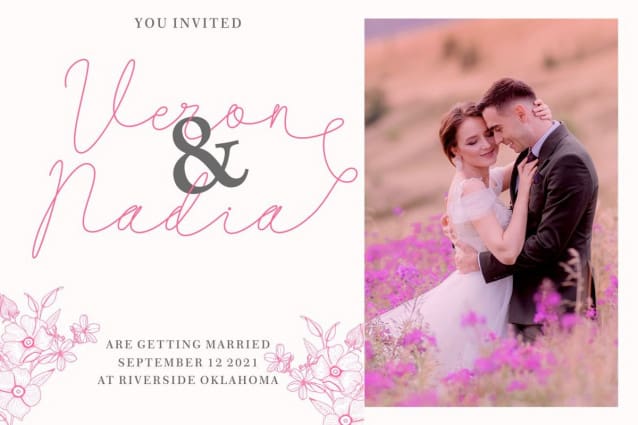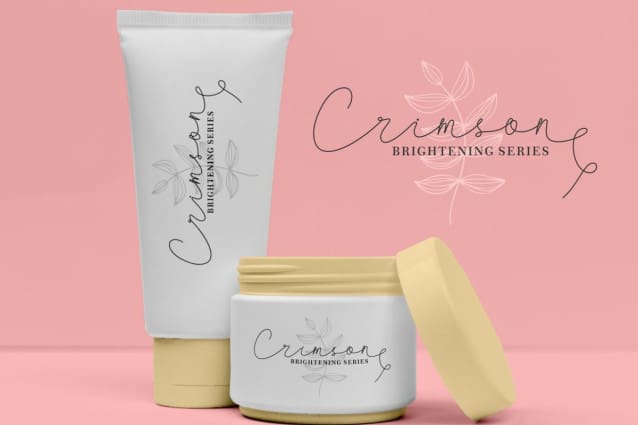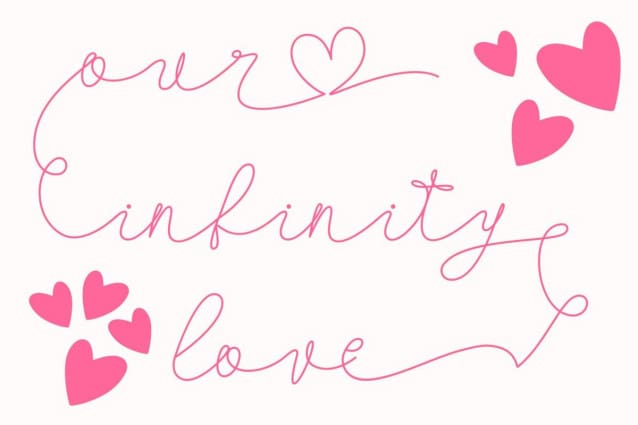
Our Infinity Love Font
Our Infinity Love – Monoline Wedding Font. Our Infinity Love wedding script fresh & modern script with handmade calligraphy style. This font is inspired by monoline the character’s style which shows the romance of a relationship through hand strokes with the added “love” symbol at the end of the line.
This font is perfect for a professional touch making this font more elegant and suitable for all types of projects you are working on, especially for romantic-themed work. But this font is also suitable for logos, branding, greeting cards, invitation cards, advertisements, titles, healines, book titles, stickers, packaging, quotes, posters, t-shirts/apparel, billboards and others.